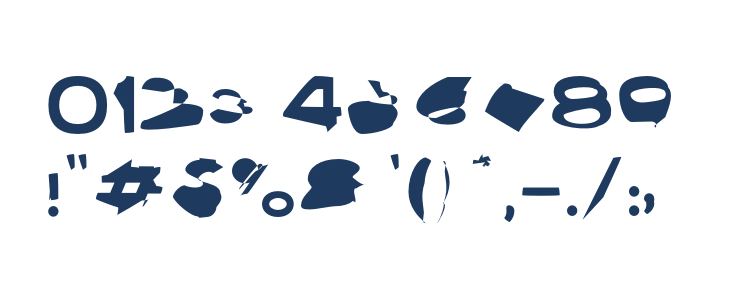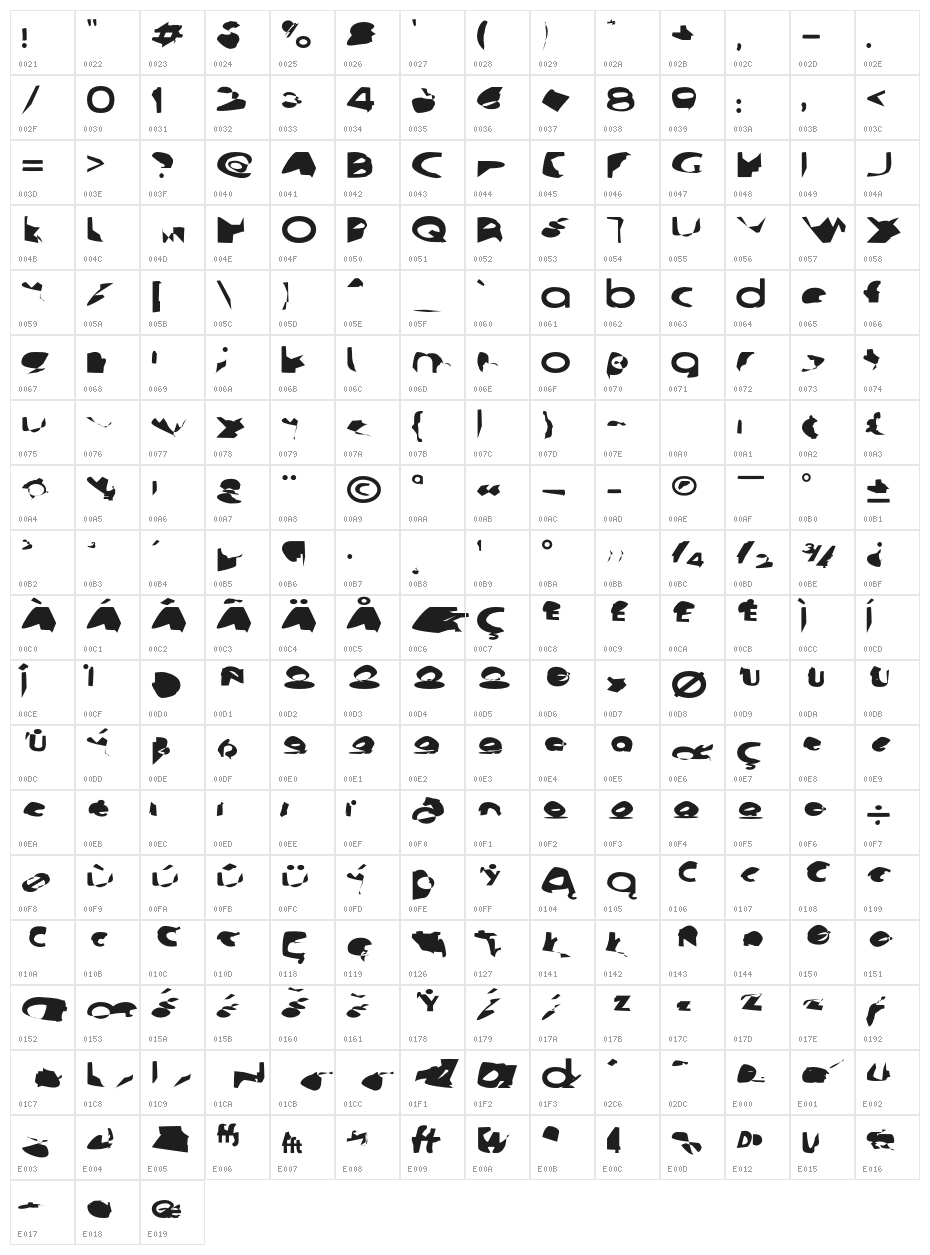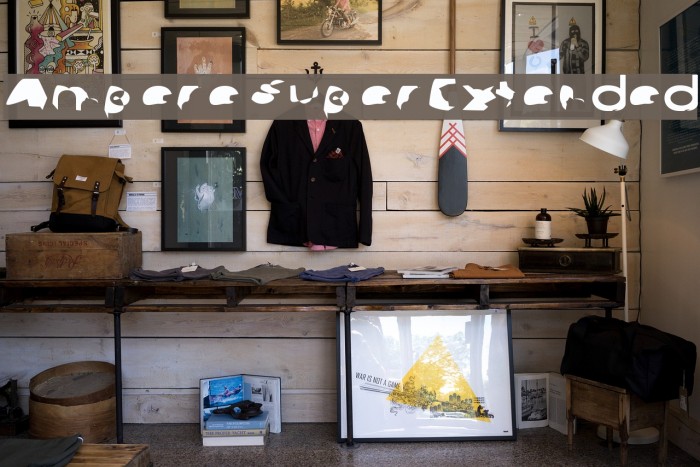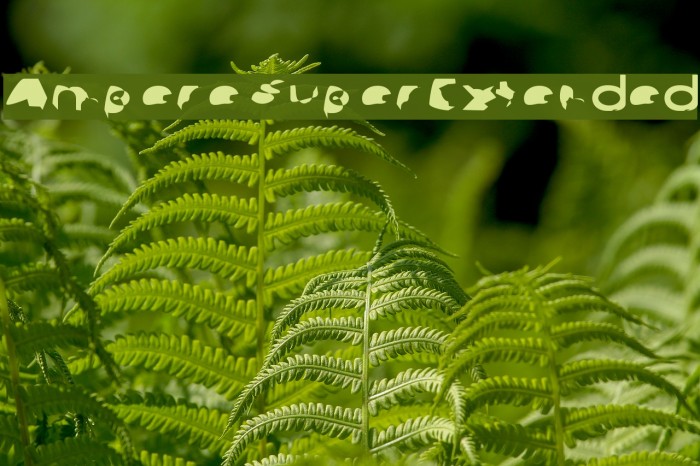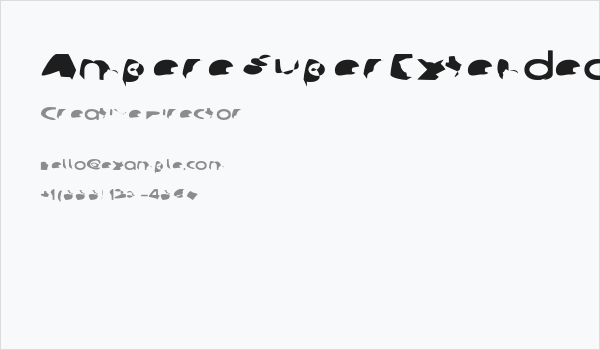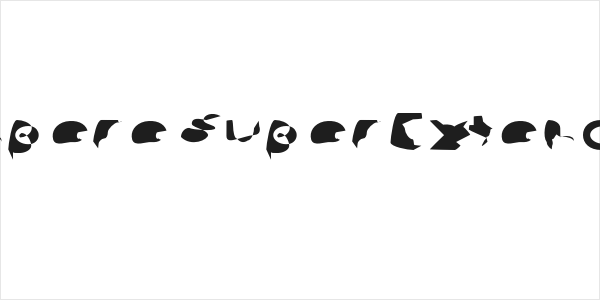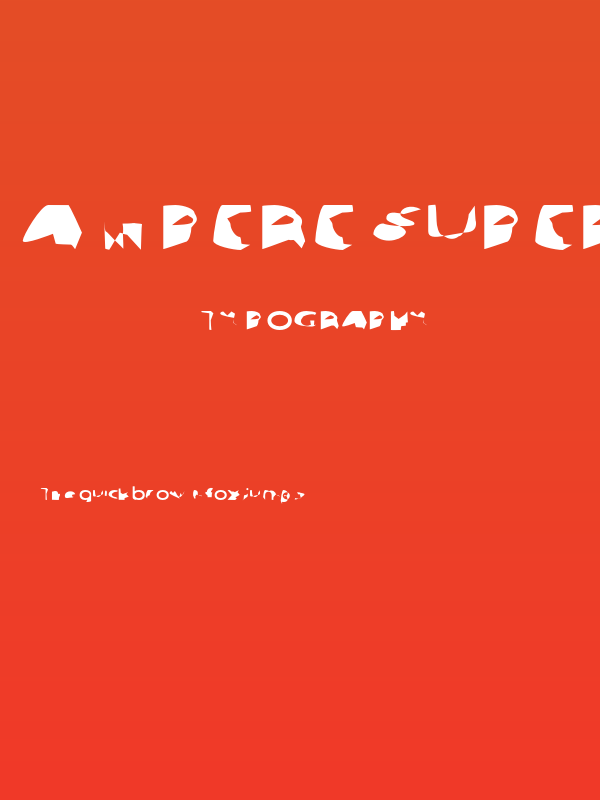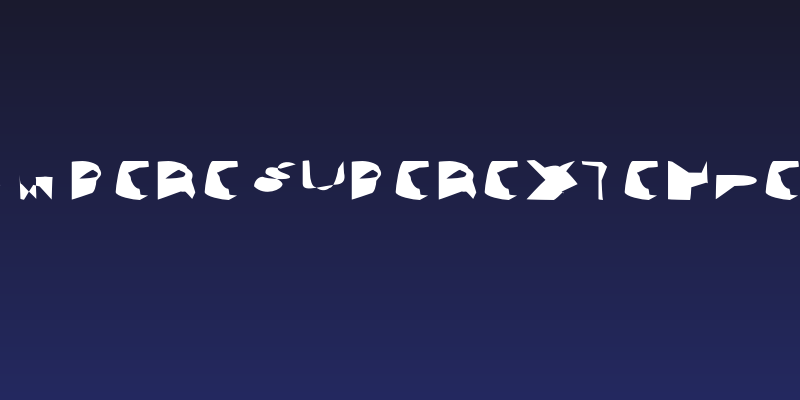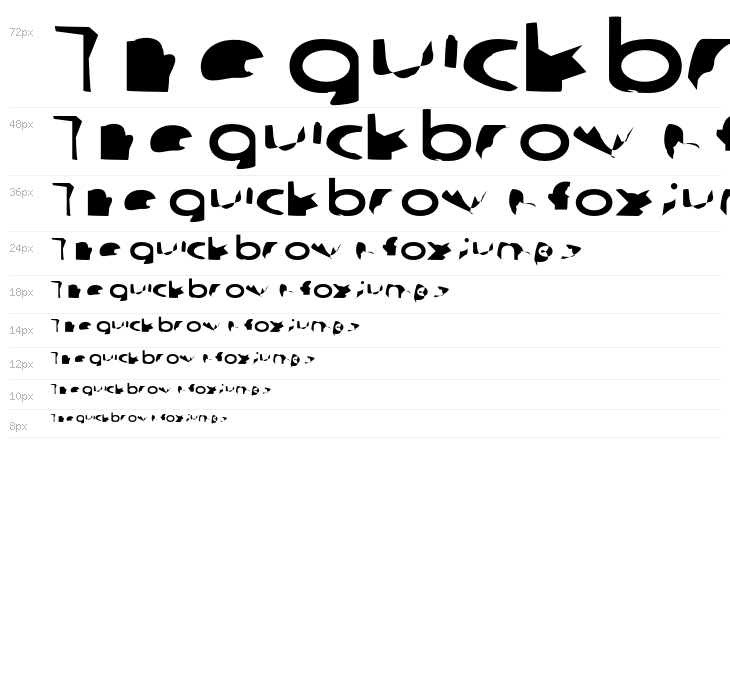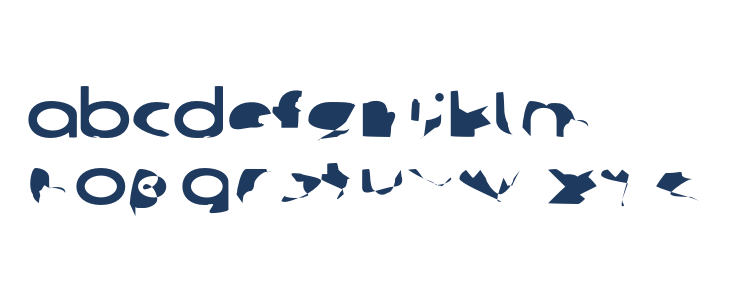
Ampere SuperExtended Font
Ampere SuperExtended Description
This font features a highly abstract and fragmented design, where each character is composed of bold, irregular shapes that create a sense of movement and dynamism. The letters are heavily stylized, with sharp angles and unexpected cuts that give them a unique, artistic flair. The numbers and special characters follow the same design principles, maintaining consistency across the set. This font is not intended for readability but rather for making a bold visual statement. Its unconventional style makes it suitable for creative projects that require a distinctive and eye-catching typeface.
| Use Case | Logos, Posters, Artistic Projects |
| Proposed Projects | Ideal for avant-garde posters, album covers, or any project needing a striking visual impact. |